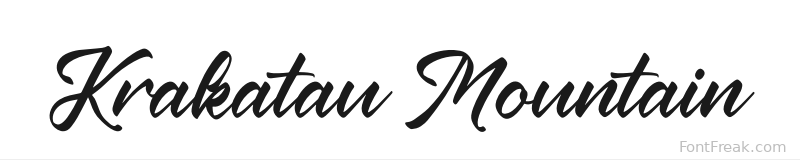
Krakatau Mountain
About Krakatau Mountain
Krakatau Mountain is a stunning script font designed by Perspectype Studio in 2021, embodying a unique blend of elegance and natural inspiration. This font falls under the decorative category, characterized by its flowing and organic letterforms that evoke the majestic essence of mountains. The strokes are gracefully varied, with a combination of thicker and thinner lines that create a captivating contrast, while the cursive nature of the letters adds a sense of movement and fluidity. Generous spacing between characters enhances readability, making it an excellent choice for various design needs.
Krakatau Mountain shines in specific applications, making it ideal for wedding invitations, where its romantic flair can beautifully convey heartfelt messages. It also works wonderfully for movie posters, particularly in genres that emphasize adventure or the great outdoors, as the font's name suggests a connection to nature and exploration. Additionally, restaurant menus can benefit from the font's artistic touch, providing an inviting atmosphere for diners. Content creators, especially those focused on lifestyle blogs or travel vlogs, will find this font perfect for enhancing their visual branding.
The target audience for Krakatau Mountain includes graphic designers, small business owners, and content creators seeking a distinctive font that stands out in their projects. Its versatility and aesthetic appeal make it a valuable asset for anyone looking to add a touch of sophistication and creativity to their designs.
What sets the Krakatau Mountain font apart is its ability to blend elegance with a sense of adventure, making it suitable for a wide range of applications while retaining a unique identity. The Krakatau Mountain font free download allows designers and creators to easily access this remarkable typeface, enabling them to elevate their projects with its enchanting style.